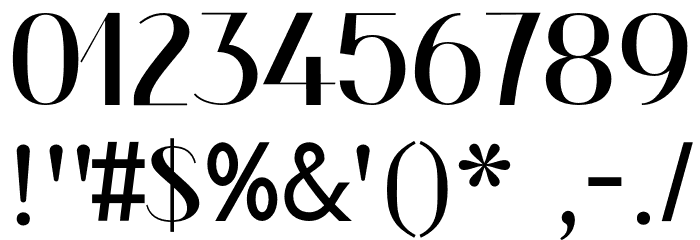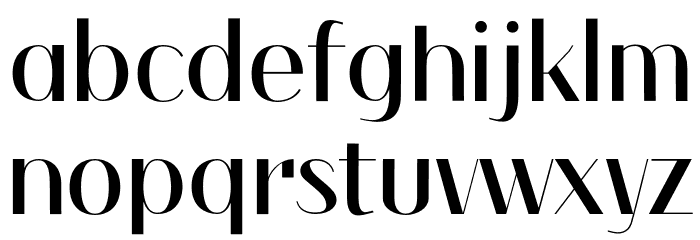
Coolio Font
Coolio Description
This font exhibits a modern and elegant style with a high contrast between thick and thin strokes. The uppercase letters are sleek and elongated, giving a sophisticated appearance. The lowercase letters maintain a consistent style with smooth curves and sharp edges, enhancing readability while maintaining a stylish look. The numerals are distinct and well-proportioned, complementing the overall aesthetic. Special characters are designed with the same attention to detail, ensuring a cohesive look across all glyphs. This font is suitable for projects that require a contemporary and refined touch.
A modern, high-contrast font with elegant, elongated uppercase letters and smooth, stylish lowercase characters from Uncategorized fonts.